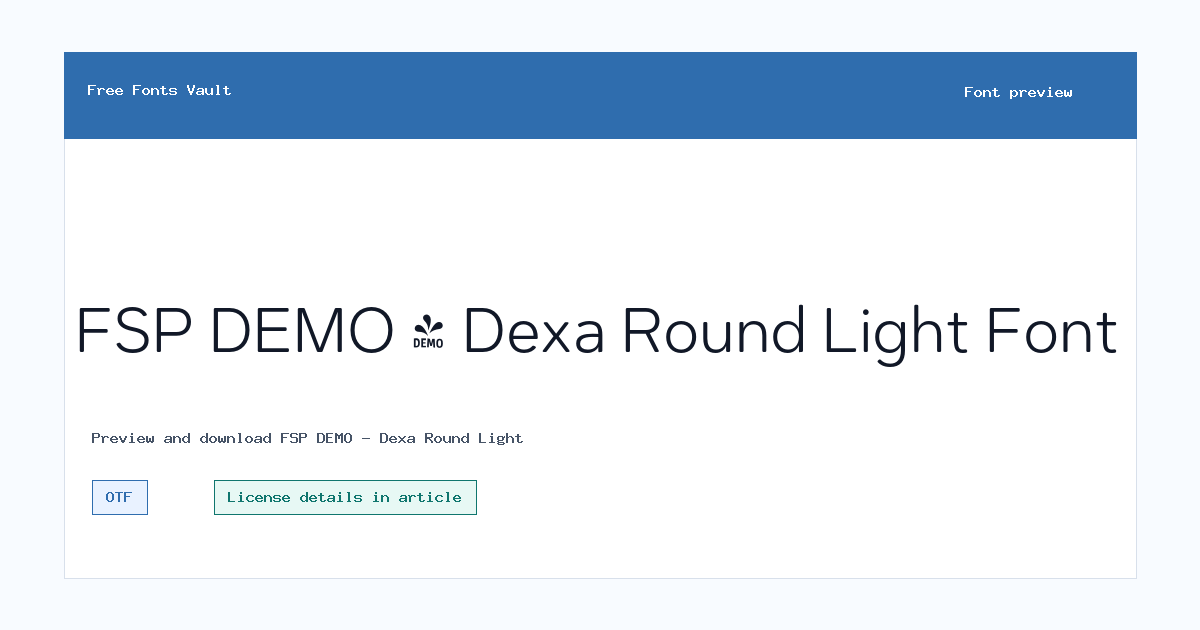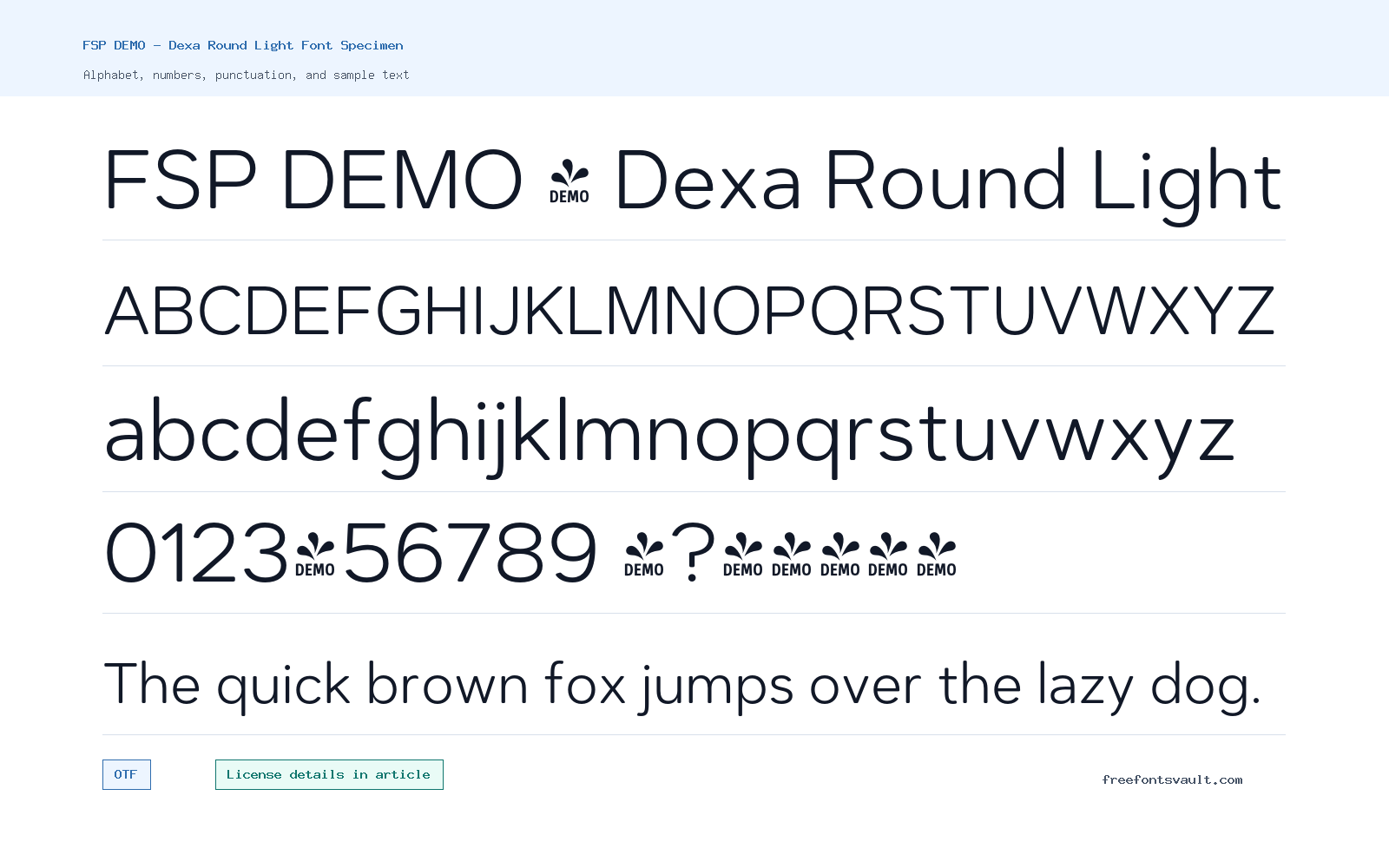
FSP DEMO - Dexa Round Light
- Designer Ceyhun Birinci
- Foundry Artegra
FSP DEMO – Dexa Round Light font.
Dexa Round Light is a thin, rounded font style with a clean, modern feel. Its soft terminals and light weight make it useful for titles, interface text, and refined display settings where a gentle sans-serif look is preferred.
About Dexa Round Light
The file name identifies this as Fontspring-DEMO-dexaround-300-light.otf, an OTF font in the Dexa Round Light style. The 300 weight gives it a slim appearance, while the rounded construction keeps the letters from feeling too sharp or technical. It is best treated as a light display or UI-friendly style rather than a heavy headline face.
Use the preview tool to test the exact words you plan to set, especially if you need small text, numbers, punctuation, or mixed-case phrases. Light fonts can look elegant at larger sizes, but they may lose contrast on busy backgrounds or in very small body copy. Pair it with a darker regular-weight sans serif when you need longer reading sections.
- Light 300 weight with rounded sans-serif letterforms
- Normal upright style for clean titles and short text
- Soft visual tone that works best with good contrast and generous spacing
- Minimal logos, nameplates, and brand mockups
- Website headers, app labels, and navigation tests
- Posters, cards, and social graphics with short wording
- Clean typographic layouts that need a soft light sans-serif
Dexa Round Light is credited to designer Ceyhun Birinci, with Artegra listed as the foundry.
For best results, test it at the final size and background color. Increase tracking slightly for all-caps text, avoid low-contrast color pairings, and use a stronger companion font for paragraphs or dense information.
What kind of font is Dexa Round Light?
It is a light-weight rounded sans-serif style. The available file is an OTF font with normal upright styling and a 300 weight.
Who designed Dexa Round Light?
The font is credited to Ceyhun Birinci, and Artegra is listed as the foundry.
What is Dexa Round Light best for?
It works best for short, clean text such as headings, labels, logos, social graphics, and interface mockups where a soft light sans-serif look is useful.
Is Dexa Round Light good for body text?
It may work for small amounts of text, but the light weight can reduce readability at small sizes. Test your text in the preview and consider pairing it with a regular or medium-weight sans serif for longer reading.